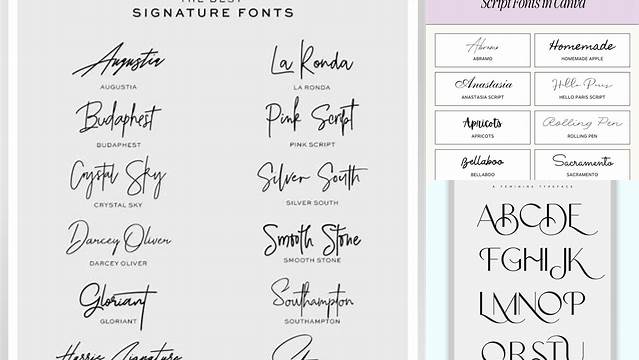
Best Free Cursive Fonts: Download Now!
Hey guys! Looking for the best free cursive fonts to spice up your projects? You've come to the right place! Cursive fonts can add a touch of elegance, personality, and flair to anything from invitations and logos to websites and social media graphics. But let’s be real, finding the perfect font can sometimes feel like searching for a needle in a haystack. That's why I’ve put together this comprehensive guide to help you discover some amazing free cursive fonts that you can download and use right away. So, buckle up and let’s dive into the world of beautiful typography!
1. Elegant Cursive Fonts Free
When you think of cursive fonts, elegance often comes to mind, right? Elegant cursive fonts can bring a touch of sophistication and class to any design. These fonts are perfect for wedding invitations, high-end branding, and anything that needs a bit of a fancy touch. The best free cursive fonts in this category often feature flowing lines, delicate strokes, and graceful loops. Think of fonts that make you want to sip tea in a garden – that’s the vibe we’re going for! But where can you find these beauties without breaking the bank? Well, there are tons of websites offering free downloads, but you've got to be careful to check the licensing. Some are free for personal use but require a commercial license for business projects. We’ll be covering some of those details as we go! These elegant options can help you create a memorable and stylish impression. Imagine your name or brand set in a flowing, romantic script - gorgeous, isn’t it? Let’s explore some of the specifics to keep in mind when choosing an elegant cursive font. Pay attention to legibility – even though they're beautiful, you want your message to be clear. Also, consider the overall tone. Are you going for classic elegance, or something more modern and chic? There are tons of variations within the elegant cursive category, so take your time and explore!
2. Modern Cursive Fonts Free Download
Okay, let's talk modern! Sometimes you want something cursive, but with a contemporary twist. Modern cursive fonts offer a fresh take on traditional scripts, incorporating clean lines, unique letterforms, and a sense of current style. These are best free cursive fonts for branding, web design, and projects that need a touch of personality without feeling outdated. Think sleek and stylish, but still with that handwritten feel. These fonts are all about making a statement while staying current. What exactly makes a cursive font “modern”? It often boils down to simplified forms, bolder strokes, or even a slight disconnect between letters – breaking some of the traditional rules of cursive. These fonts might also incorporate stylistic elements that are trending, such as a slightly imperfect, hand-drawn quality, or a combination of thick and thin strokes. Modern cursive fonts are super versatile. They can be used for everything from website headers and social media graphics to packaging design and even logos. They're perfect for brands that want to project a creative, contemporary image. When you're choosing a modern cursive font, think about the overall feel you want to create. Do you want something playful and energetic, or something more sophisticated and minimalist? There are tons of options out there, so have fun exploring! And remember, “free” doesn't have to mean low quality. There are some seriously amazing designers offering stunning fonts for free, so you can create a professional look without spending a dime.
3. Best Cursive Fonts for Logos Free
Your logo is the face of your brand, right? So, choosing the right font is crucial. The best free cursive fonts for logos can add a personal touch, making your brand feel more approachable and memorable. A well-chosen cursive font can convey elegance, creativity, or even a sense of playfulness, depending on your brand's personality. But what makes a cursive font a good fit for a logo? Legibility is key – your logo needs to be readable, even at small sizes. You also want a font that is distinctive and reflects your brand's style. Is your brand luxurious and sophisticated? Or more fun and casual? The font should align with that. Think about scalability too. Will the font look good on a business card as well as on a billboard? This is super important for consistency across all your branding materials. And of course, you want a font that’s unique and stands out from the crowd. There are so many fonts out there, so finding one that truly captures your brand’s essence can take some time. When you're searching for free cursive fonts for logos, don't just grab the first pretty one you see. Take the time to test it out in different sizes, colors, and contexts. See how it looks with your brand name and other design elements. A great logo font should seamlessly integrate with the rest of your branding, creating a cohesive and professional look.
4. Free Cursive Fonts for Invitations
Planning a wedding, party, or special event? Invitations are your guests' first impression, so make them count! Best free cursive fonts for invitations can add a touch of elegance and sophistication, setting the tone for your event. Whether you're going for a classic, romantic vibe or a modern, chic feel, the right cursive font can make all the difference. For invitations, you want a font that is both beautiful and legible. Guests need to be able to easily read the important details, like the date, time, and location. Think about the overall style of your event. Is it formal or casual? The font should match the tone. For a formal wedding, you might choose a flowing, elegant script with delicate details. For a more casual party, a modern, slightly bolder cursive might be a better fit. And remember, free doesn’t mean you have to compromise on quality! There are tons of gorgeous cursive fonts available for free download that are perfect for invitations. Just be sure to check the licensing if you’re planning on using the font for commercial purposes, like creating invitations for clients. When you're designing your invitations, think about the layout and the other design elements as well. The font should complement the overall design, not compete with it. Keep the text concise and easy to read, and use a font size that is large enough to be legible but not overwhelming. With the right cursive font, your invitations will make a stunning first impression!
5. Download Free Cursive Fonts for Cricut
Calling all Cricut crafters! If you love creating personalized projects with your Cricut machine, you know how important the right fonts are. And guess what? There are tons of best free cursive fonts out there that are perfect for Cricut projects. Whether you're making custom cards, vinyl decals, or iron-on transfers, a beautiful cursive font can add that extra special touch. But here's the thing: not all fonts work well with Cricut. You need fonts that are clean, smooth, and easy to cut. Fonts with very thin lines or intricate details can be difficult for your Cricut to handle, so it's important to choose wisely. The good news is, there are plenty of gorgeous free cursive fonts that are Cricut-friendly! Look for fonts with a consistent stroke weight and avoid fonts with too many decorative flourishes. Before you download a font, it's always a good idea to test it out in Cricut Design Space. Upload the font and try cutting a small sample to see how it works. This will save you time and frustration in the long run. When you're choosing a cursive font for your Cricut project, think about the overall design and the material you're using. A bolder cursive font might work well for a vinyl decal, while a more delicate script might be better suited for a paper project. And remember, you can always weld the letters together in Cricut Design Space to create a seamless, connected cursive design. So, go ahead and explore the world of free cursive fonts and start creating some amazing projects with your Cricut!
6. Script Fonts Similar to Cursive Free
Okay, let's talk script fonts! Sometimes, the line between “cursive” and “script” can get a little blurry. But basically, script fonts are designed to mimic handwriting, and that includes cursive styles. If you're searching for the best free cursive fonts, you'll definitely want to explore the broader category of script fonts too, as they offer a wide range of styles and options. You might be surprised at the variety you find! So, what makes a script font similar to cursive? Well, it's all about the flowing, connected letterforms. Cursive fonts are a type of script font, but script fonts can also include other handwriting styles, like calligraphy or even brush lettering. The key is the handwritten feel. If you're looking for a font that feels personal and expressive, script fonts are a great choice. When you're browsing script fonts, pay attention to the different styles within the category. Some are elegant and formal, while others are more casual and playful. Think about the overall mood you want to create and choose a font that fits. And just like with cursive fonts, you can find tons of amazing script fonts for free download. Just remember to check the licensing before you use them in a commercial project. With so many options available, you're sure to find the perfect script font to add that handwritten touch to your designs!
7. Calligraphy Cursive Fonts Free
Calligraphy fonts are like the super fancy cousins of cursive fonts. They’re all about the art of beautiful writing, with elegant strokes and a touch of artistry. If you want to add a really sophisticated flair to your designs, best free cursive fonts that are inspired by calligraphy are a fantastic choice. But what exactly sets calligraphy cursive fonts apart? It’s all about the variation in line thickness and the way the letters are formed. Calligraphy often uses a special pen or brush that creates thick and thin strokes, adding a dynamic quality to the writing. These fonts aim to replicate that effect digitally, giving your text a handcrafted feel. Calligraphy fonts are perfect for invitations, certificates, and anything that calls for a touch of formality and elegance. They can also be used for logos and branding, especially for businesses that want to project a high-end image. When you're choosing a calligraphy cursive font, think about the specific style you're going for. There are many different types of calligraphy, from traditional styles like Copperplate and Spencerian to more modern and free-flowing styles. Some calligraphy fonts are very ornate and decorative, while others are more simple and understated. Consider your project and choose a font that complements the overall design. And remember, while there are tons of amazing free calligraphy fonts out there, it’s always a good idea to check the licensing before you use them in a commercial project. So, go ahead and explore the world of calligraphy cursive fonts and add a touch of elegance to your designs!
8. Free Cursive Fonts for Commercial Use
Okay, this is a big one! If you're planning to use a font for anything that will make money – like a logo, a website, or products for sale – you need to make sure you have a commercial license. Luckily, there are tons of best free cursive fonts available for commercial use, meaning you can use them in your business projects without paying a fee. But here's the catch: not all “free” fonts are actually free for commercial use. Some fonts are free for personal use only, and you'll need to purchase a license if you want to use them in a commercial project. That’s why it’s super important to read the licensing agreement before you download and use a font. Where can you find free cursive fonts for commercial use? There are several websites that offer a curated selection of fonts with commercial licenses. These sites often make it easy to filter fonts by license type, so you can quickly find the ones that are safe to use in your business projects. When you're browsing free fonts for commercial use, pay close attention to the specific terms of the license. Some licenses may have restrictions on how you can use the font, such as limitations on the number of projects or the type of products you can create. If you're unsure about the licensing terms, it's always best to err on the side of caution and contact the font designer or the website directly for clarification. Using a font without the proper license can lead to legal trouble, so it's worth taking the time to do your research. With a little bit of effort, you can find amazing free cursive fonts for commercial use and create stunning designs for your business!
9. Cursive Fonts Free Download for Windows
Windows users, this one's for you! Downloading and installing best free cursive fonts on your Windows computer is super easy, and it opens up a world of creative possibilities. Whether you're designing invitations, creating social media graphics, or just want to add a personal touch to your documents, having a collection of beautiful cursive fonts is a must. So, how do you download and install fonts on Windows? First, you need to find a font you love! There are tons of websites that offer free fonts for download. Once you've found a font, download the font file. It will usually be in a ZIP file, so you'll need to extract the font files (they'll typically be in .ttf or .otf format). Then, there are a couple of ways to install the font. You can right-click on the font file and select “Install,” or you can copy the font file to the Fonts folder in your Windows system directory (usually C:\Windows\Fonts). Once the font is installed, it will be available in all your applications, like Microsoft Word, Adobe Photoshop, and more! If you're having trouble seeing the font in your applications, try restarting your computer. This can sometimes help your system recognize the new font. When you're downloading fonts for Windows, make sure you're downloading them from a reputable source. Some websites may offer fonts that are bundled with malware, so it's important to be careful. Stick to well-known font websites or download fonts directly from the designer's website whenever possible. With a little bit of know-how, you can easily download and install free cursive fonts on your Windows computer and start creating beautiful designs!
10. Cursive Fonts Free Download for Mac
Hey Mac users! Just like our Windows friends, you can easily download and install best free cursive fonts on your Mac to add some flair to your projects. Whether you're working on a presentation, designing a logo, or creating custom stationery, having a variety of cursive fonts at your fingertips is a game-changer. So, how does the process work on a Mac? It's pretty straightforward! First, find a cursive font you love on a reputable font website. Download the font file, which will typically be in a ZIP file. Double-click the ZIP file to extract the font files (usually in .ttf or .otf format). Then, simply double-click the font file, and Font Book will open. Font Book is the built-in font management application on macOS. In Font Book, click the “Install Font” button, and the font will be installed on your system. Easy peasy! Once the font is installed, it will be available in all your Mac applications, like Pages, Keynote, Adobe Illustrator, and more. If you're not seeing the font in an application, try restarting the application or even your computer. This can sometimes help the system recognize the new font. Just like with Windows, it's important to download fonts from trusted sources to avoid any potential security issues. Stick to well-known font websites or download fonts directly from the designer's website whenever possible. With a few simple steps, you can download and install free cursive fonts on your Mac and start creating beautiful, personalized designs!
11. Cursive Fonts Free for Personal Use
Okay, let's talk personal projects! If you're looking for best free cursive fonts for things like greeting cards, scrapbooking, or personal invitations, you have tons of options. Many font designers offer their fonts for free for personal use, which means you can use them for non-commercial projects without paying a license fee. But what exactly does “personal use” mean? It typically means that you're not using the font for anything that will generate income. So, if you're creating something for yourself, your family, or your friends, you're usually good to go. However, if you're using the font for a business project, even a small one, you'll likely need a commercial license. When you're downloading free cursive fonts for personal use, it's still important to read the licensing agreement. Some fonts may have restrictions on how you can use them, even for personal projects. For example, the license might prohibit you from redistributing the font or modifying it in any way. Where can you find free cursive fonts for personal use? There are many websites that offer a wide selection of fonts with personal use licenses. These sites often make it easy to filter fonts by license type, so you can quickly find the ones that are suitable for your projects. When you find a font you love, be sure to download it from a reputable source to avoid any potential security issues. And remember, if you ever decide to use the font for a commercial project in the future, you'll need to purchase a commercial license. But for personal use, there are so many amazing free cursive fonts out there just waiting to be discovered!
12. Best Free Cursive Wedding Fonts
Planning a wedding? Congratulations! Your invitations, signage, and other wedding materials are a reflection of your special day, and the right font can set the perfect tone. If you're dreaming of a touch of elegance and romance, best free cursive fonts for weddings are a must-have. But with so many options out there, how do you choose the perfect one? First, think about the overall style of your wedding. Is it formal and traditional, or more relaxed and modern? The font you choose should align with the vibe you're going for. For a classic wedding, a formal script with elegant flourishes might be the perfect choice. For a more contemporary celebration, a modern cursive with clean lines could be a better fit. Legibility is also key, especially for important details like the date, time, and location on your invitations. You want a font that is beautiful but also easy to read. When you're browsing free cursive wedding fonts, pay attention to the details. Look for fonts with graceful curves, delicate strokes, and a touch of personality. Some fonts also include stylistic alternates, which are different versions of certain letters that you can use to add extra flair to your designs. Where can you find free cursive fonts for weddings? Many font websites offer a selection of fonts that are specifically designed for wedding invitations and other wedding-related materials. And remember, just because a font is free doesn't mean it's not high-quality. There are tons of stunning free cursive fonts out there that are perfect for your special day. So, go ahead and explore, and find the font that makes your heart sing!
13. Free Cursive Fonts for Procreate
Procreate artists, listen up! If you love creating digital art on your iPad, you know that having a variety of fonts at your fingertips is essential. And guess what? There are tons of best free cursive fonts that you can use in Procreate to add a handwritten touch to your designs. But how do you actually get fonts into Procreate? It's a little different than installing fonts on your computer, but it's still pretty easy. First, you'll need to download the font file (usually in .ttf or .otf format) on your iPad. Then, you can import the font directly into Procreate. Open the Procreate app, create a new canvas, and add a text layer. Tap on the “Edit Style” button, and you'll see a list of available fonts. Tap on the “Import Font” button, and you'll be able to select the font file you downloaded. Once the font is imported, it will be available in your font list, and you can use it in your Procreate projects! When you're choosing cursive fonts for Procreate, think about the style of your artwork. A flowing script font might be perfect for adding a romantic touch to a portrait, while a bolder cursive font could be great for creating eye-catching lettering designs. And remember, you can always adjust the size, color, and spacing of your text in Procreate to get the perfect look. There are tons of free cursive fonts out there that are perfect for Procreate, so go ahead and explore and add some handwritten flair to your digital creations!
14. Unique Free Cursive Fonts Download
Tired of the same old fonts? Looking for something that stands out from the crowd? Then you're in the right place! There are tons of best free cursive fonts out there that offer a unique twist on the traditional script style. These fonts can add a touch of personality and originality to your designs, making them truly memorable. But what makes a cursive font “unique”? It could be anything from unusual letterforms to unexpected flourishes to a distinctive overall style. Unique cursive fonts often break the rules of traditional cursive, incorporating modern elements or even a slightly imperfect, hand-drawn quality. When you're searching for unique cursive fonts, don't be afraid to think outside the box. Look for fonts that catch your eye and spark your creativity. Some unique cursive fonts might be more legible than others, so it's important to consider the context in which you'll be using the font. A very ornate or stylized font might be perfect for a headline or a logo, but it might not be the best choice for body text. Where can you find unique free cursive fonts? There are many font websites that offer a curated selection of fonts, including those with a unique and distinctive style. And remember, just because a font is free doesn't mean it's not high-quality. There are tons of talented designers out there who are creating amazing free fonts that you can use in your projects. So, go ahead and explore the world of unique cursive fonts and find the perfect one to make your designs shine!
15. Elegant Handwriting Cursive Fonts Free
Imagine a font that captures the effortless grace of handwritten script. That's what elegant handwriting cursive fonts are all about! These fonts evoke a sense of personal touch and sophistication, making them ideal for projects that require a touch of refinement. When you're searching for the best free cursive fonts that fit this description, you're essentially looking for fonts that mimic the natural flow of cursive handwriting. Think about the loops, the connections between letters, and the overall rhythm of the script. The best elegant handwriting cursive fonts have a fluid, organic quality that makes them look like they were written by hand. They often feature delicate strokes and subtle variations in line thickness, adding to the sense of realism. These fonts are perfect for invitations, thank you notes, and any project where you want to convey a sense of warmth and personal connection. They can also be used for branding and logos, especially for businesses that want to project a sophisticated and approachable image. When choosing an elegant handwriting cursive font, pay attention to legibility. While the handwritten feel is important, you also want to make sure that your text is easy to read. Look for fonts with clear letterforms and ample spacing between letters and words. And remember, there are tons of amazing free elegant handwriting cursive fonts out there just waiting to be discovered! So, go ahead and explore and find the perfect one to add a touch of handwritten elegance to your designs.
16. Bold Free Cursive Fonts for Titles
Sometimes you need a font that makes a statement! If you're looking for best free cursive fonts for titles and headings, a bold cursive font can be a fantastic choice. Bold cursive fonts command attention, adding a touch of personality and flair to your headlines. But what exactly makes a cursive font “bold”? It's all about the thickness of the strokes. Bold cursive fonts have thicker lines than regular cursive fonts, making them stand out and grab the reader's eye. They're perfect for titles, headings, and anything where you want to make a strong visual impact. Bold cursive fonts can be used in a variety of design projects, from posters and flyers to website headers and social media graphics. They can also be used for logos and branding, especially for businesses that want to project a confident and stylish image. When you're choosing a bold cursive font, consider the overall style of your design. A bold cursive font can add a touch of elegance to a formal design, or it can add a playful touch to a more casual design. It's important to choose a font that complements the overall tone and message of your project. Legibility is also key, especially for titles and headings. You want a font that is both eye-catching and easy to read. Look for fonts with clear letterforms and ample spacing between letters and words. And remember, there are tons of amazing free bold cursive fonts out there that are perfect for your titles and headings. So, go ahead and explore and find the one that makes your message pop!
17. Thin Cursive Fonts Free Download
On the other end of the spectrum from bold fonts, we have thin cursive fonts! These delicate and graceful fonts offer a subtle touch of elegance and sophistication. If you're looking for best free cursive fonts that are understated and refined, thin cursive fonts are a great choice. What exactly makes a cursive font “thin”? It's all about the lightness of the strokes. Thin cursive fonts have very fine lines, creating a delicate and airy feel. They're perfect for projects that require a touch of elegance without being overpowering. Thin cursive fonts are often used for wedding invitations, thank you notes, and other formal occasions. They can also be used for logos and branding, especially for businesses that want to project a sophisticated and minimalist image. When you're choosing a thin cursive font, legibility is especially important. Because the lines are so fine, it's crucial to choose a font that is clear and easy to read, especially at smaller sizes. Look for fonts with well-defined letterforms and ample spacing between letters and words. Think about the background color and texture as well. A thin font might get lost on a busy background, so it's important to choose a background that provides enough contrast. And remember, there are tons of amazing free thin cursive fonts out there that are perfect for adding a touch of delicate elegance to your designs. So, go ahead and explore and find the one that suits your style!
18. Free Swirly Cursive Fonts
Ready to add a little flourish to your designs? Swirly cursive fonts are all about those extra loops, curves, and decorative elements! If you're looking for best free cursive fonts that are playful, whimsical, and full of personality, swirly cursive fonts are the way to go. These fonts can add a touch of fun and creativity to any project. But what exactly makes a cursive font “swirly”? It's the extra decorative elements that extend from the letterforms. These swirls, loops, and flourishes can add a touch of elegance, romance, or even a bit of fairytale magic to your designs. Swirly cursive fonts are perfect for invitations, greeting cards, and other projects that call for a touch of whimsy. They can also be used for logos and branding, especially for businesses that want to project a creative and playful image. When you're choosing a swirly cursive font, legibility is something to keep in mind. All those extra swirls and flourishes can sometimes make a font harder to read, so it's important to choose a font that strikes a good balance between style and clarity. Think about the context in which you'll be using the font. A very ornate swirly font might be perfect for a headline, but it might not be the best choice for body text. And remember, there are tons of amazing free swirly cursive fonts out there that are perfect for adding a touch of whimsy to your designs. So, go ahead and explore and let your creativity flow!
19. Free Dotted Cursive Fonts
Learning to write cursive? Dotted cursive fonts can be a super helpful tool! These fonts show the letterforms as a series of dots, allowing learners to trace the letters and practice their handwriting skills. If you're looking for best free cursive fonts that are specifically designed for handwriting practice, dotted cursive fonts are a great choice. But what exactly makes a cursive font “dotted”? It's simple: the letterforms are made up of dots instead of solid lines. This allows learners to follow the path of the letter and develop muscle memory for writing in cursive. Dotted cursive fonts are often used in educational materials, worksheets, and other resources for teaching handwriting. They can also be used by adults who want to improve their cursive handwriting or learn a new script style. When you're choosing a dotted cursive font, clarity is essential. The dots should be clear and easy to see, and the letterforms should be well-defined. Think about the spacing between the dots as well. Too little spacing can make the letters hard to trace, while too much spacing can make it difficult to see the overall shape of the letter. Where can you find free dotted cursive fonts? There are several websites that offer fonts specifically designed for handwriting practice. And remember, just because a font is free doesn't mean it's not effective. There are tons of high-quality dotted cursive fonts out there that can help you or your students master the art of cursive handwriting!
20. Free Cursive Fonts with Tails
Want to add a bit of drama and flair to your typography? Cursive fonts with tails are the way to go! These fonts feature elongated strokes that extend beyond the main letterforms, creating a sense of movement and elegance. If you're searching for best free cursive fonts that have that extra touch of sophistication, cursive fonts with tails are a fantastic choice. What exactly are “tails” in the context of fonts? They're the extended strokes that often appear at the beginning or end of a letter. In cursive fonts with tails, these strokes are often exaggerated, creating a sweeping, elegant effect. These fonts are perfect for invitations, logos, and any project where you want to make a statement. They can add a touch of formality and sophistication, or they can simply add a bit of visual interest. When you're choosing a cursive font with tails, think about the overall style of your design. The tails can add a lot of visual weight to a font, so it's important to use them in a way that complements the rest of your design elements. Legibility is also something to consider. While the tails can add a lot of style, you also want to make sure that your text is easy to read. Look for fonts that strike a good balance between flair and clarity. And remember, there are tons of amazing free cursive fonts with tails out there that are perfect for adding a touch of drama to your designs. So, go ahead and explore and find the one that makes your message soar!
21. Free Connecting Cursive Fonts
The essence of cursive writing lies in the connection between letters, right? Connecting cursive fonts beautifully capture this flow and fluidity. These fonts are designed to mimic the seamless strokes of handwriting, making your text look elegant and natural. When you’re on the hunt for the best free cursive fonts, connecting styles are a must-explore. What makes a cursive font “connecting”? It’s all about how the letters join together. In connecting cursive fonts, the strokes flow smoothly from one letter to the next, creating a continuous, handwritten feel. This is what truly distinguishes cursive from other script fonts. These fonts are perfect for wedding invitations, heartfelt notes, and any project where you want to convey a sense of warmth and personalization. They’re also fantastic for logo designs, giving your brand a handcrafted, approachable vibe. When you’re selecting a connecting cursive font, pay close attention to the letter joins. Are they smooth and natural? Do they maintain legibility? The best fonts will strike a balance between style and readability. You'll find a wide variety of connecting cursive fonts out there, ranging from delicate and refined to bold and expressive. So, dive in and discover the perfect connecting script to bring your words to life! There are numerous options to elevate your designs.
22. Free Cursive Fonts with Hearts
Adding a touch of love to your designs? Cursive fonts with hearts are absolutely adorable! These charming fonts incorporate heart-shaped elements into the letterforms, creating a sweet and romantic aesthetic. If you’re looking for the best free cursive fonts to express affection, these heart-infused styles are a wonderful choice. Where do the hearts typically appear in these fonts? You'll often find them as dots over the “i” or integrated into the loops and curves of other letters. The hearts add a playful, whimsical touch while still maintaining the elegance of cursive. These fonts are ideal for Valentine’s Day cards, wedding stationery, and any project that celebrates love and friendship. They’re also super cute for children’s designs or anything that needs a dose of sweetness. When you’re browsing cursive fonts with hearts, consider the size and placement of the heart elements. Do they complement the overall design of the font? Are they too distracting or just right? You'll want a font that balances the heart details with legibility and style. There's a whole world of heart-adorned cursive fonts waiting to be explored. You’ll find everything from subtle heart accents to bold and prominent heart features. Pick the one that speaks to your heart and add a loving touch to your next project!
23. Free Retro Cursive Fonts
Take a trip back in time with retro cursive fonts! These fonts capture the essence of vintage handwriting styles, bringing a nostalgic charm to your designs. If you're seeking the best free cursive fonts with a retro flair, you're in for a treat. What defines a cursive font as “retro”? It's often the combination of flowing script with design elements reminiscent of past eras. Think of the elegant scripts of the 1950s or the bold, brush-style lettering of the 1970s. Retro cursive fonts can evoke a sense of nostalgia, sophistication, or even a bit of groovy fun, depending on the specific style. These fonts are fantastic for vintage-themed invitations, posters, and branding projects. They can also add a unique touch to websites and social media graphics, setting your designs apart from the modern crowd. When you’re selecting a retro cursive font, consider the specific era you want to evoke. A delicate, Spencerian-style script will feel different from a bold, mid-century modern cursive. Think about the overall mood and message you want to convey. With a wide range of retro cursive fonts available, you're sure to find the perfect style to transport your designs back in time! Let the vintage vibes flow.
24. Free Formal Cursive Fonts Download
Need to add a touch of class to your project? Formal cursive fonts are the answer! These elegant and refined fonts are perfect for occasions that call for a sense of sophistication and tradition. If you're on the lookout for the best free cursive fonts for formal use, you’ll find plenty of stunning options. What makes a cursive font “formal”? It’s all about the refined letterforms, graceful strokes, and overall sense of elegance. Formal cursive fonts often feature delicate loops, flowing connections, and a sense of balanced artistry. They exude a sense of timeless beauty and are ideal for invitations, certificates, and high-end branding. These fonts are particularly well-suited for wedding invitations, formal event announcements, and any project where you want to create a lasting impression of elegance. When you're choosing a formal cursive font, legibility is crucial. The font should be beautiful but also easy to read, especially for important details like names, dates, and times. Look for fonts with clear letterforms and ample spacing. You’ll discover a wealth of formal cursive fonts, from classic scripts to more modern interpretations. Each one brings its unique flavor of sophistication, so take your time to explore and find the perfect fit for your project. Let the elegance shine!
25. Free Casual Cursive Fonts
Sometimes, you need a font that feels a little more relaxed and approachable. That's where casual cursive fonts come in! These fonts offer a friendly and informal vibe, perfect for projects that need a touch of personality without being overly formal. If you're searching for the best free cursive fonts with a casual feel, you’ve got a ton of options to explore. What sets a cursive font apart as “casual”? It’s often the slightly imperfect letterforms, the playful strokes, and the overall sense of spontaneity. Casual cursive fonts might have a more hand-drawn quality or a slightly uneven baseline, adding to their charm. These fonts are great for informal invitations, greeting cards, and social media graphics. They can also add a personal touch to websites and branding materials, making your message feel more relatable. When you're selecting a casual cursive font, think about the overall tone you want to convey. Do you want something playful and whimsical, or more laid-back and friendly? Look for fonts that match your desired mood. With a wide array of casual cursive fonts available, you can find the perfect style to inject personality and warmth into your designs. Let the good times flow!
26. Free Brush Cursive Fonts Download
Want to give your text a handcrafted touch? Brush cursive fonts are the way to go! These fonts mimic the look of brush lettering, adding a dynamic and artistic feel to your designs. If you're on the hunt for the best free cursive fonts with a brush-style aesthetic, prepare to be inspired. What makes a cursive font a “brush” style? It's all about the strokes! Brush cursive fonts feature varying line thicknesses, mimicking the natural strokes created by a brush or pen. This gives the font a sense of movement, energy, and hand-painted charm. Brush cursive fonts are fantastic for posters, signage, and any project where you want to create a bold, artistic statement. They’re also popular for logos and branding, especially for businesses that want to project a creative and expressive image. When you’re choosing a brush cursive font, consider the level of texture and variation in the strokes. Some brush fonts have a very rough, textured feel, while others are smoother and more refined. Think about the overall look you want to achieve and select a font that matches your vision. There’s a whole world of brush cursive fonts out there, from bold and dramatic to delicate and flowing. So, unleash your inner artist and add a touch of handcrafted beauty to your designs!
27. Free Handwritten Cursive Fonts
For a truly personal touch, handwritten cursive fonts are unbeatable! These fonts capture the unique quirks and imperfections of real handwriting, making your text feel authentic and intimate. If you're looking for the best free cursive fonts that mimic natural handwriting, you’ll be delighted by the options available. What defines a cursive font as “handwritten”? It’s the natural variations in letterforms, the subtle inconsistencies in spacing, and the overall sense that the text was written by a human hand. Handwritten cursive fonts often have a slightly imperfect quality, which adds to their charm and authenticity. These fonts are perfect for personal notes, greeting cards, and any project where you want to convey a sense of warmth and sincerity. They can also be used for branding, especially for businesses that want to project a friendly and approachable image. When you’re choosing a handwritten cursive font, consider the overall style of the handwriting. Is it neat and legible, or more free-flowing and expressive? Think about the message you want to convey and select a font that matches your tone. There's a vast array of handwritten cursive fonts to explore, each with its unique personality and style. So, find the one that feels like your own handwriting and let your words shine!
28. Free Cursive Fonts for Tattoos
Thinking about getting a tattoo in cursive script? The font choice is crucial! Cursive fonts can add elegance and personality to your ink, but you need to choose a style that will look great and hold up well over time. If you're on the hunt for the best free cursive fonts for tattoos, there are a few key considerations. First and foremost, legibility is paramount. A beautiful cursive font won't do you much good if it's unreadable on your skin. Consider how the font will look as it ages and the ink spreads slightly. Simpler, cleaner cursive styles tend to hold up better than overly ornate ones. The thickness of the lines is also important. Very thin, delicate lines may fade or blur over time. Bolder lines will generally be more durable and legible. Think about the size and placement of your tattoo. A larger design can accommodate a more intricate font, while a smaller tattoo will need a simpler style. It's always a good idea to consult with your tattoo artist. They can offer expert advice on font choices and help you find a cursive style that will look amazing and stand the test of time. There are tons of free cursive fonts out there to explore, so take your time, do your research, and choose a font that you'll love for years to come!
29. How to Install Free Cursive Fonts
Downloaded some awesome new cursive fonts? Now it's time to get them installed so you can start using them in your projects! The process is pretty straightforward, but it varies slightly depending on your operating system. Whether you're on Windows or Mac, I’ve got you covered. For Windows users, the easiest way to install a font is to simply right-click on the font file (usually a .ttf or .otf file) and select “Install”. You can also copy the font file into your Fonts folder, which is located in your Windows system directory (usually C:\Windows\Fonts). Once the font is installed, it should be available in all your applications. If you don't see it right away, try restarting the application or your computer. On a Mac, the process is even simpler. Just double-click the font file, and Font Book (the built-in font management app) will open. Click the “Install Font” button, and you're done! The font will now be available in all your Mac applications. As with Windows, you may need to restart an application or your computer if you don't see the font right away. Before you install a font, make sure you've downloaded it from a reputable source. There are tons of great font websites out there, but it's always a good idea to be cautious and avoid downloading fonts from untrustworthy sites. With a few simple steps, you can install free cursive fonts on your computer and start adding some stylish flair to your designs!
30. Best Websites to Download Free Cursive Fonts
Ready to dive into the world of free cursive fonts? The good news is, there are tons of websites out there offering amazing fonts for download! But with so many options, it can be tough to know where to start. That's why I’ve compiled a list of some of the best websites to download free cursive fonts. When you're browsing font websites, keep a few things in mind. First, always check the licensing terms. Some fonts are free for personal use only, while others are free for commercial use. Make sure you understand the terms before you download a font, especially if you plan to use it in a business project. It’s also a good idea to download fonts from reputable websites to avoid any potential security issues. Some great websites to check out include DaFont, FontSpace, Google Fonts, and Creative Fabrica (which often has freebies). These sites offer a wide variety of cursive fonts, from elegant scripts to playful handwritten styles. They also make it easy to filter fonts by license type, so you can quickly find the ones that are suitable for your projects. When you find a font you love, be sure to download it from the website's official download link. Avoid clicking on any suspicious links or ads. With a little bit of research, you can find tons of amazing free cursive fonts on the web and start creating beautiful designs! Happy font hunting!